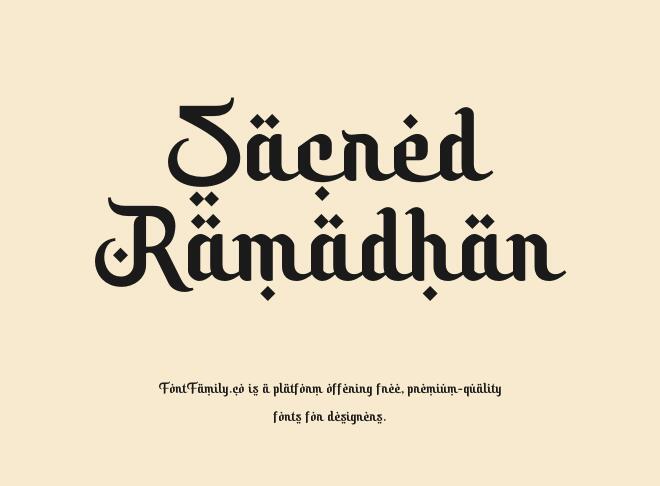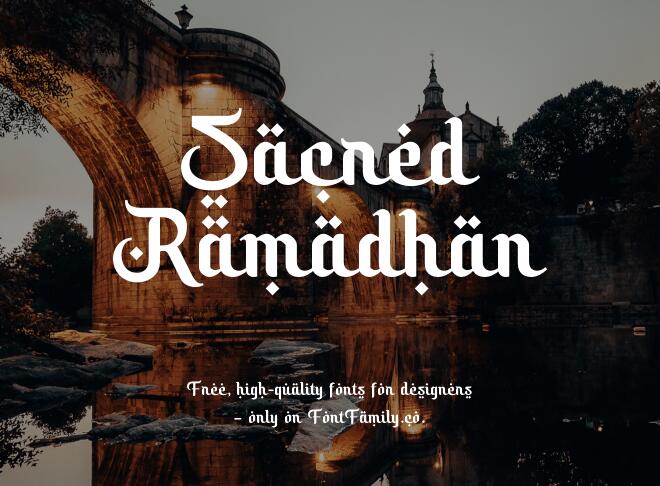
Sacred Ramadhan Font
The Sacred Ramadhan Font is a beautiful, handcrafted typeface designed by Creative Typography Studio. This font encapsulates the spirit of the holy month of Ramadan with its elegant, script-style calligraphy and decorative elements. The organic, handwritten feel of the font adds a personal touch to your designs, making it perfect for holiday greetings, invitations, and religious event promotions. Its elegant style can be compared to classic calligraphy fonts but with a unique twist that sets it apart. The Sacred Ramadhan Font is an excellent choice for designers looking to infuse a sense of tradition, elegance, and heartfelt emotion into their work. Its versatility makes it suitable for both digital and print mediums, providing a timeless appeal that resonates with diverse audiences.